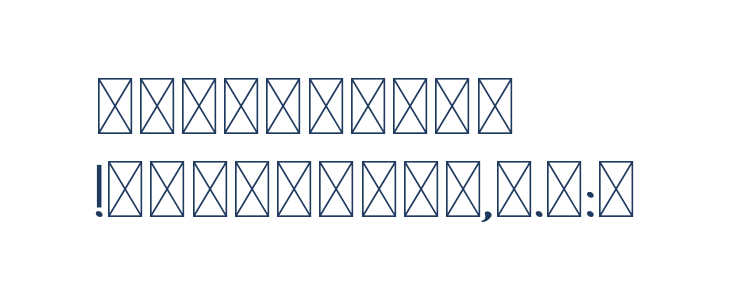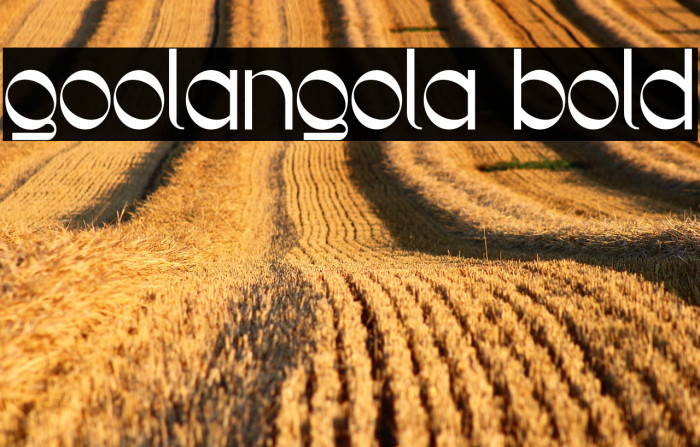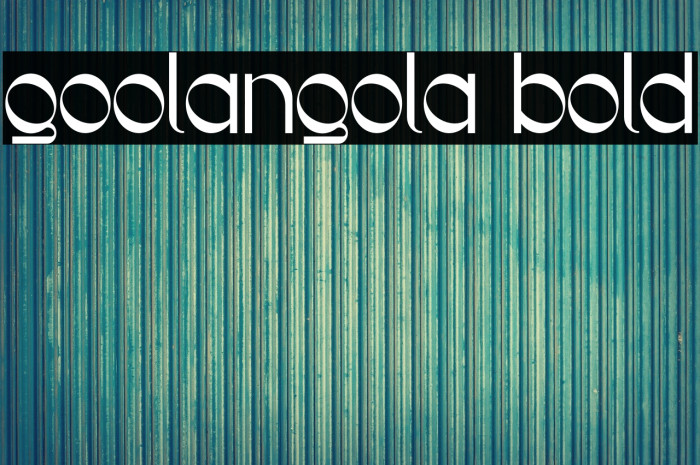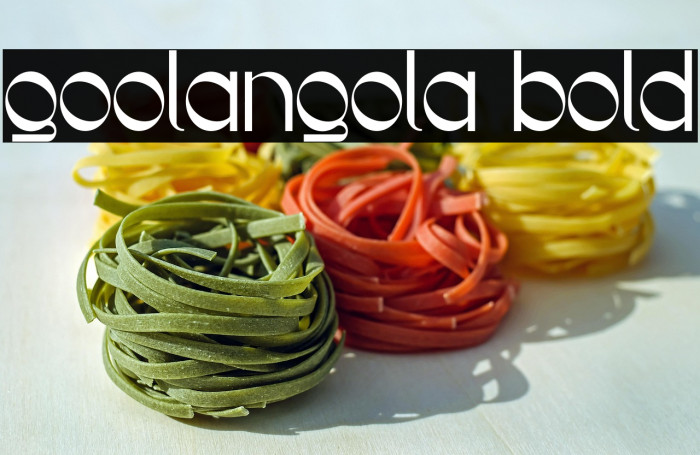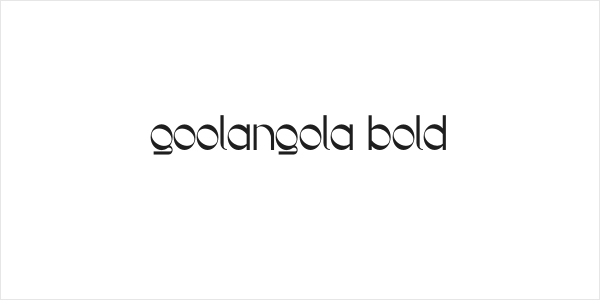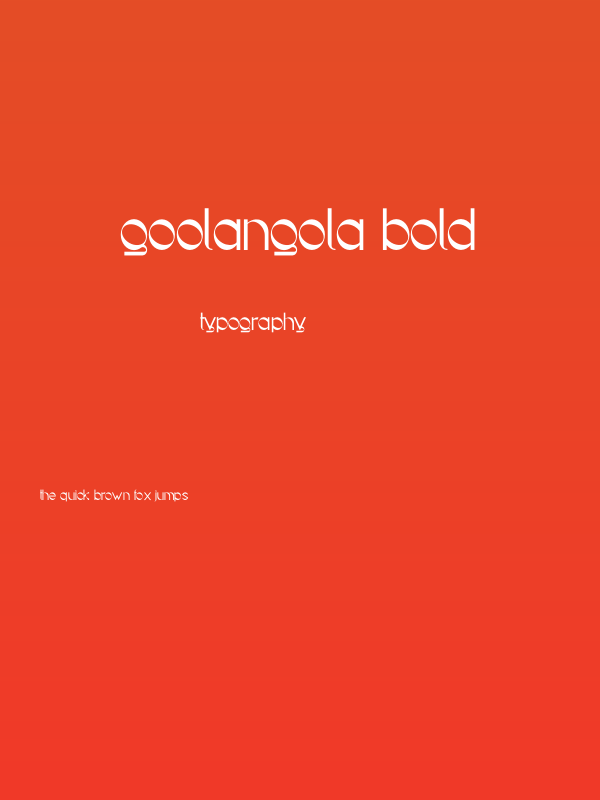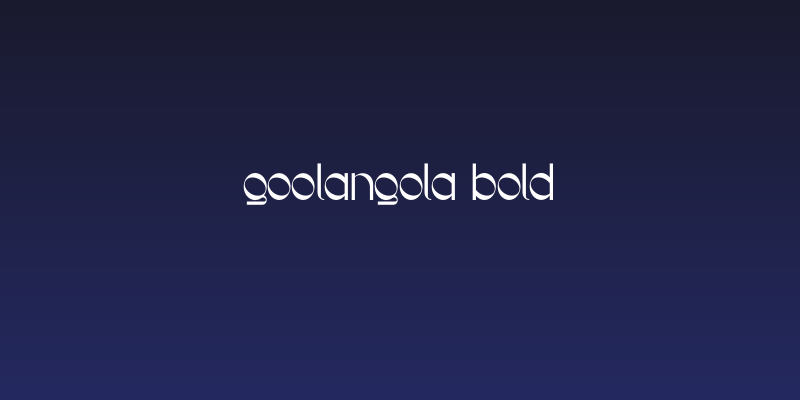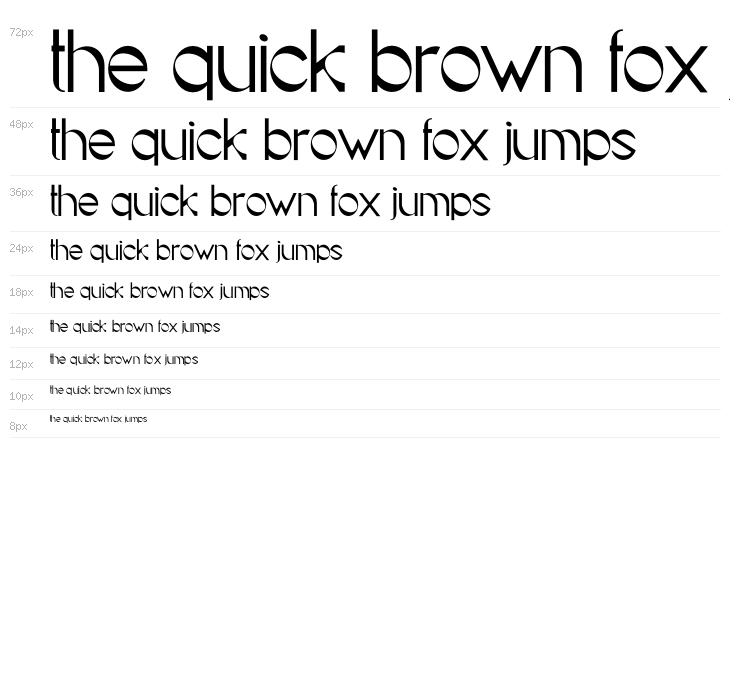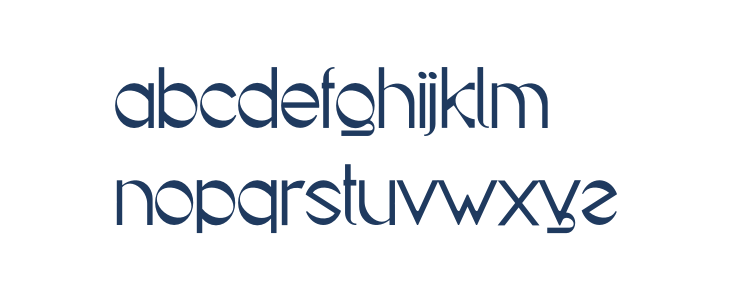
Goolangola Bold Font
Goolangola Bold Description
This font features a modern and geometric design, characterized by clean lines and a bold presence. The letters are constructed with a uniform stroke width, giving it a consistent and balanced appearance. The rounded edges and open counters add a touch of softness to the otherwise structured form. The uppercase and lowercase letters maintain a harmonious relationship, with the lowercase exhibiting a slightly more playful and approachable style. The numerals and special characters are designed to match the overall aesthetic, ensuring versatility across various applications.
| Proposed Projects | Ideal for branding, advertising, and editorial design where a contemporary and striking look is desired. |